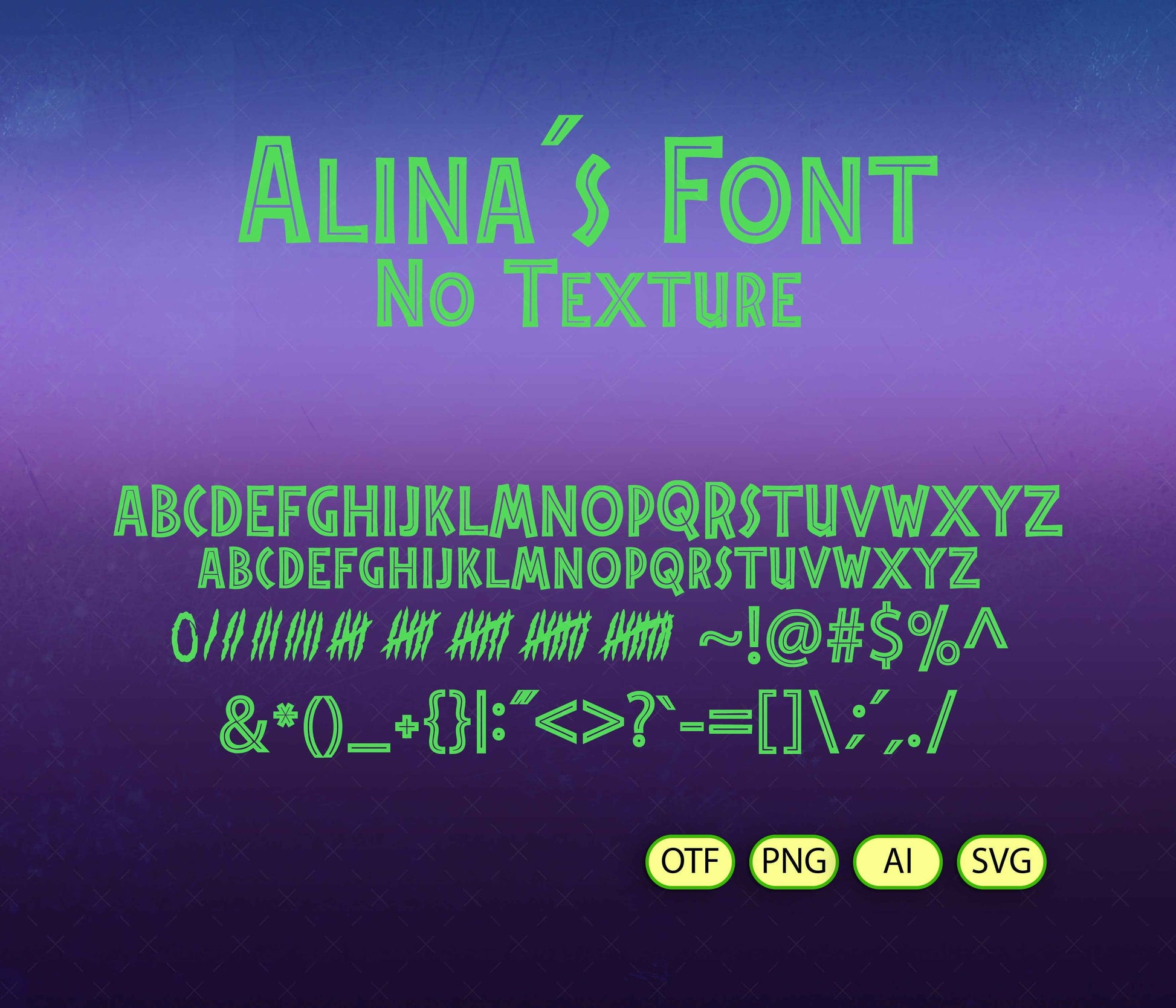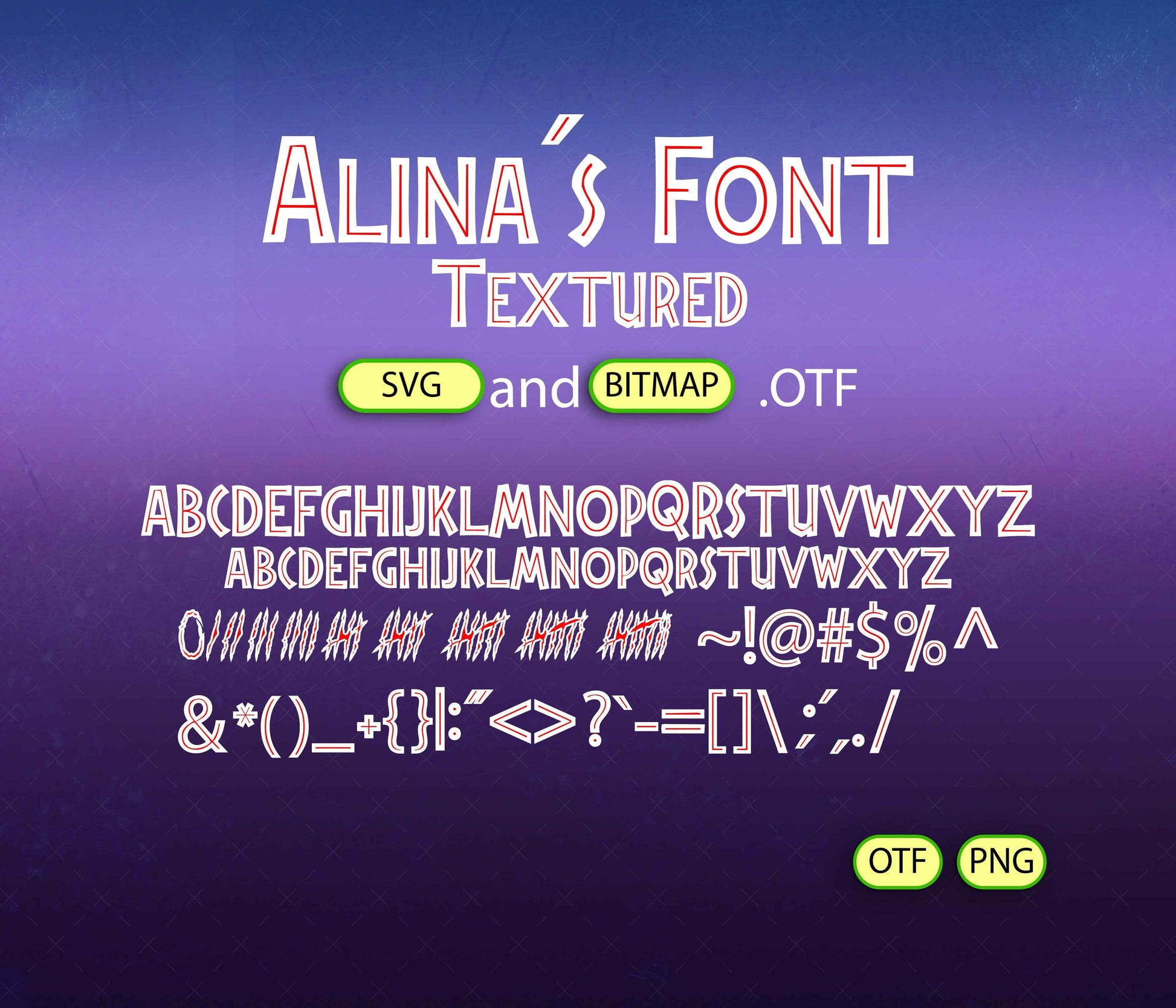
The Thrilling Realm of Dino World Font Textured
Embark on a prehistoric adventure with our Dino World font, a tribute to the epic saga that revived the awe of dinosaurs. This font embodies the essence of the Dino World universe, where the thrill of encountering magnificent creatures comes to life. Each character echoes the films' rugged and adventurous spirit, from the primal power of the T-Rex to the cunning intelligence of Velociraptors. This font isn't just characters; it's a gateway to a world where the past and present thrillingly blur.
What is the Dino World Font?
Envision a typeface that captures the bold, adventurous spirit of the film series. Carefully crafted to mirror the distinctive typography seen in Dino World, this font includes an extensive character set spanning alphabets, numbers, and special symbols. It brings the essence of the film's visual identity into your creative projects, offering a perfect blend of excitement and prehistoric wonder.
Applications of the Dino World Font:
The Dino World font is versatile and customizable, perfect for various uses:
1. Event Invitations: Create themed party or event invitations.
2. Fan Art Projects: Ideal for movie buffs creating artwork or digital content.
3. Educational Materials: Perfect for science and history materials related to paleontology.
4. Custom Apparel: Design T-shirts and merchandise for franchise fans.
5. Gaming and App Design: Enhance dinosaur-themed games and apps.
6. Social Media Campaigns: Stand out with distinctive posts and marketing materials.
7. Museum Signage: Ideal for natural history museum or exhibition signage.
8. Brand Promotions: Infuse adventure into branding and promotional materials.
9. Personalized Stationery: Create stationery for dinosaur enthusiasts.
10. Travel Brochures: Design engaging brochures for adventure and wildlife tours.
• Textured and Non-Textured Variants: Choose between a rugged, textured look or a clean, modern version.
• Extensive Character Set: Covers all your design needs.
The Dino World font is more than just a typeface; it's an invitation to explore a thrilling world where dinosaurs rule once again.